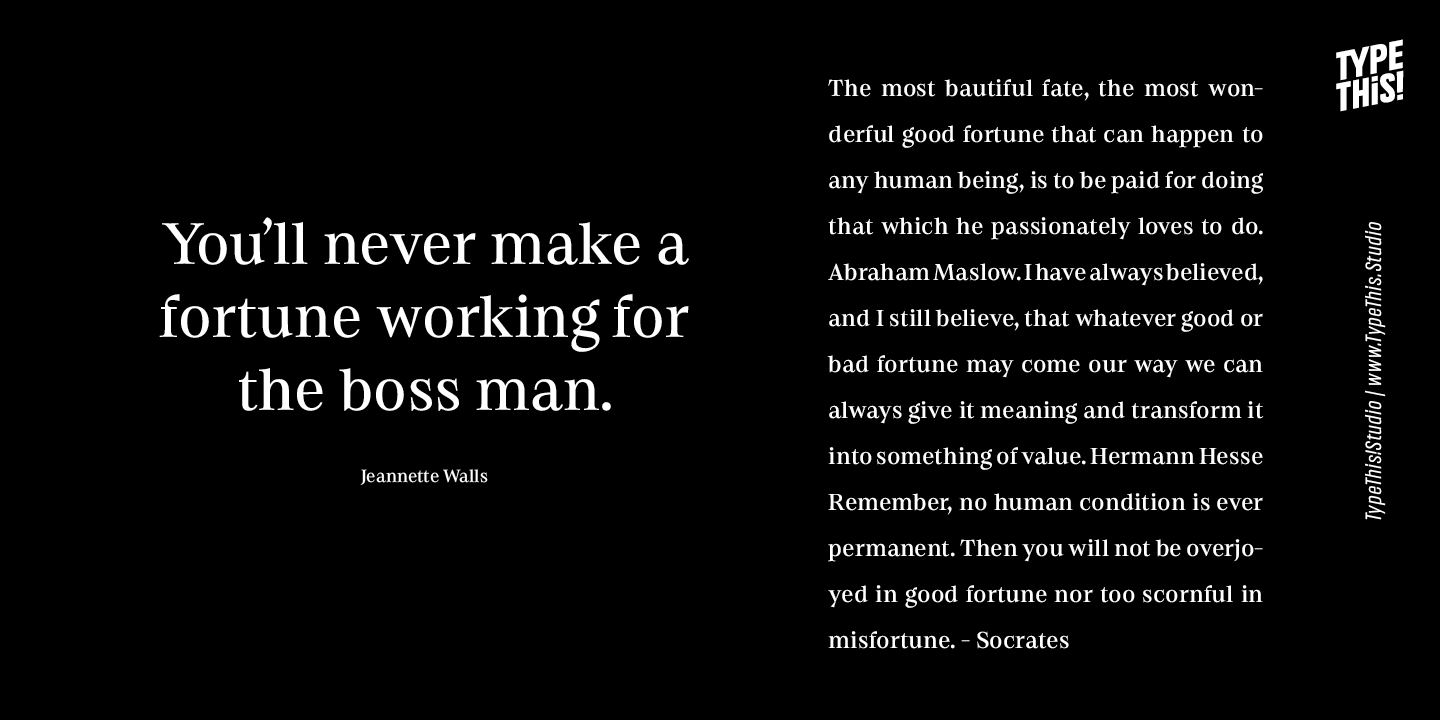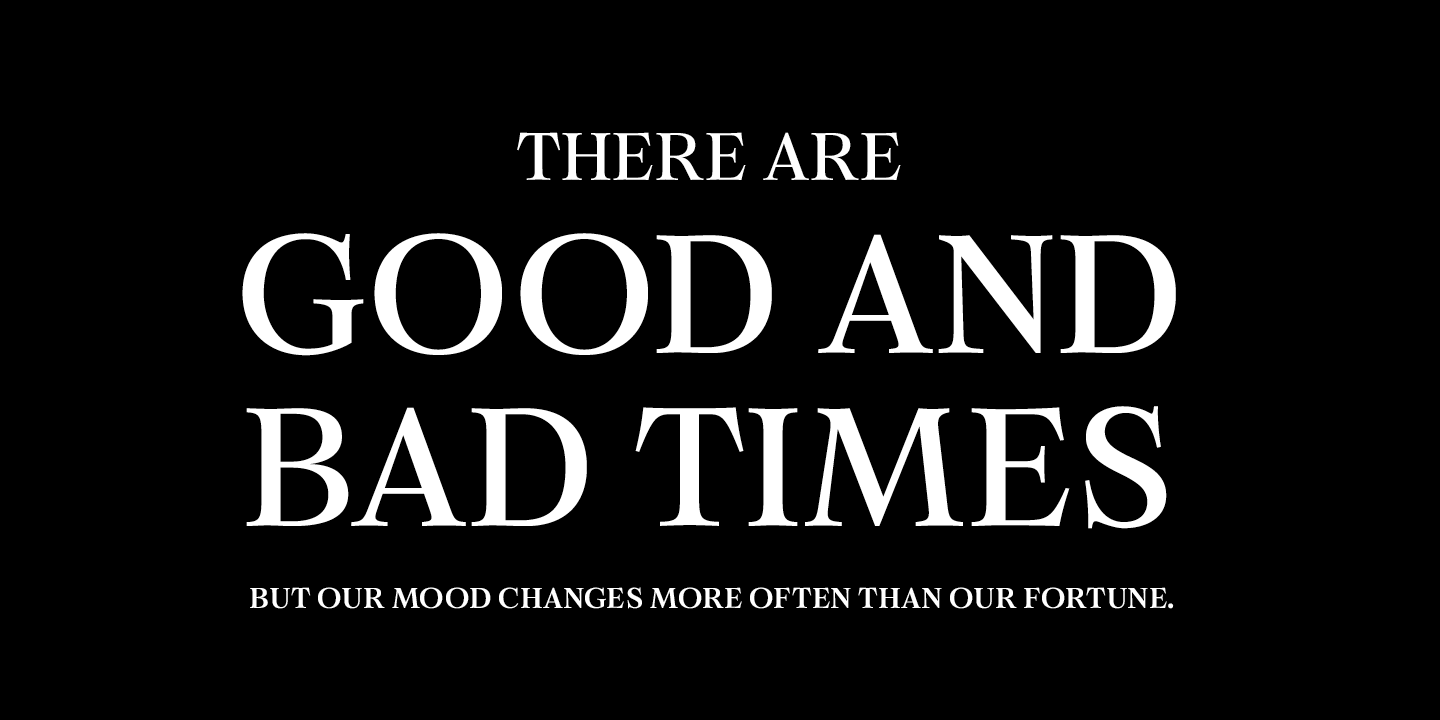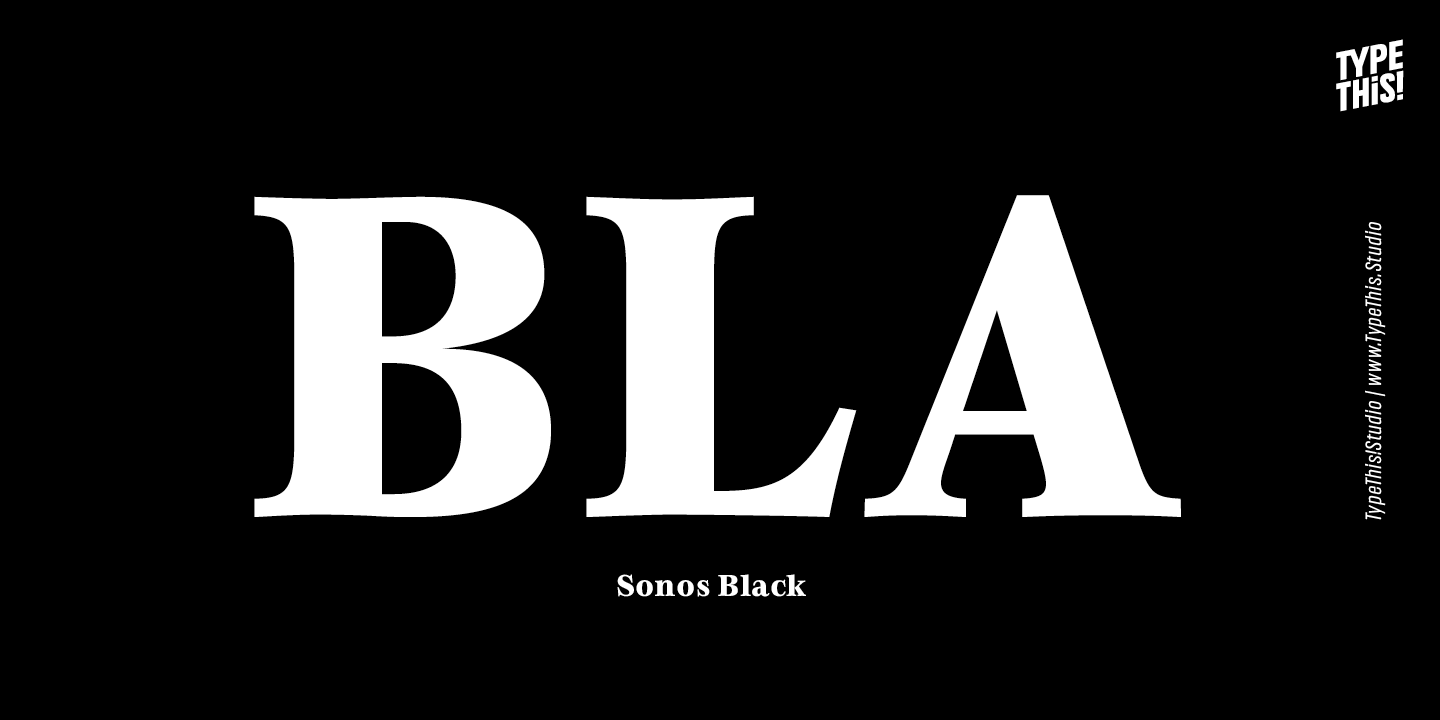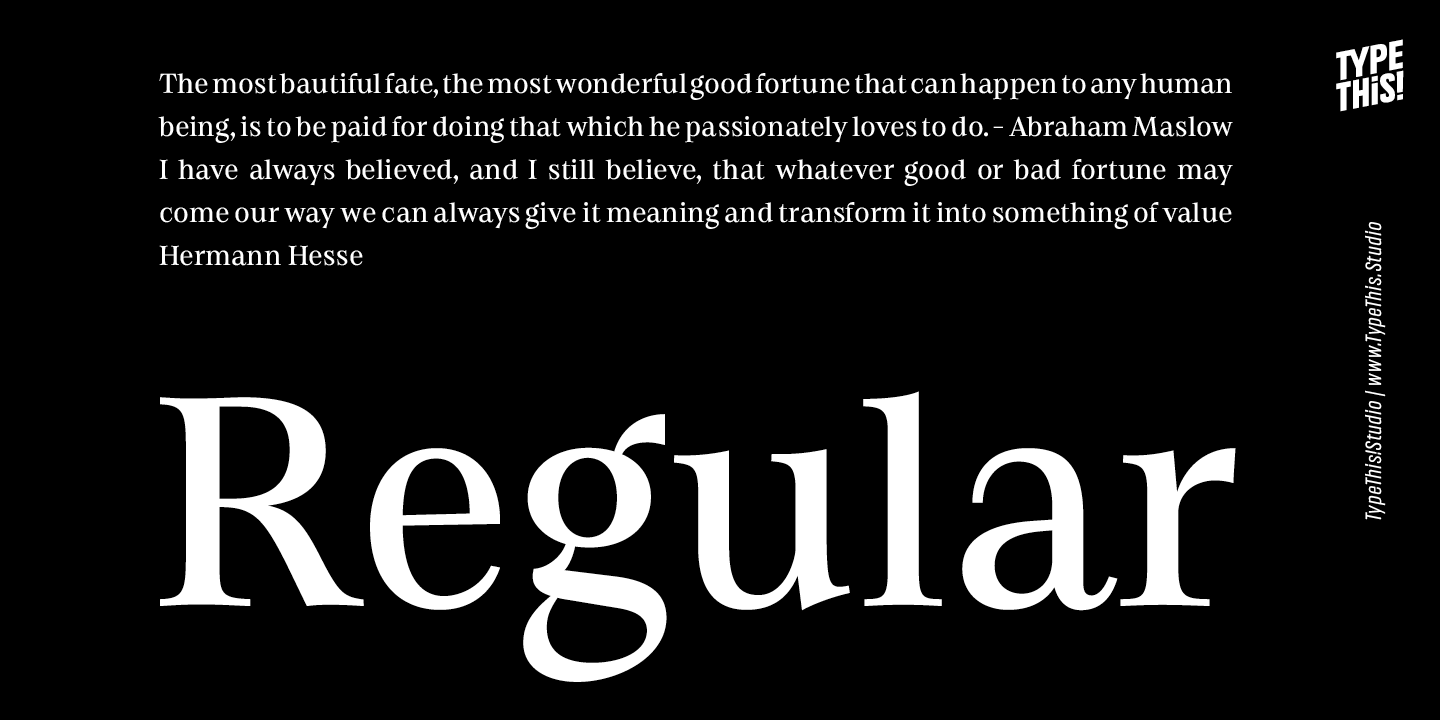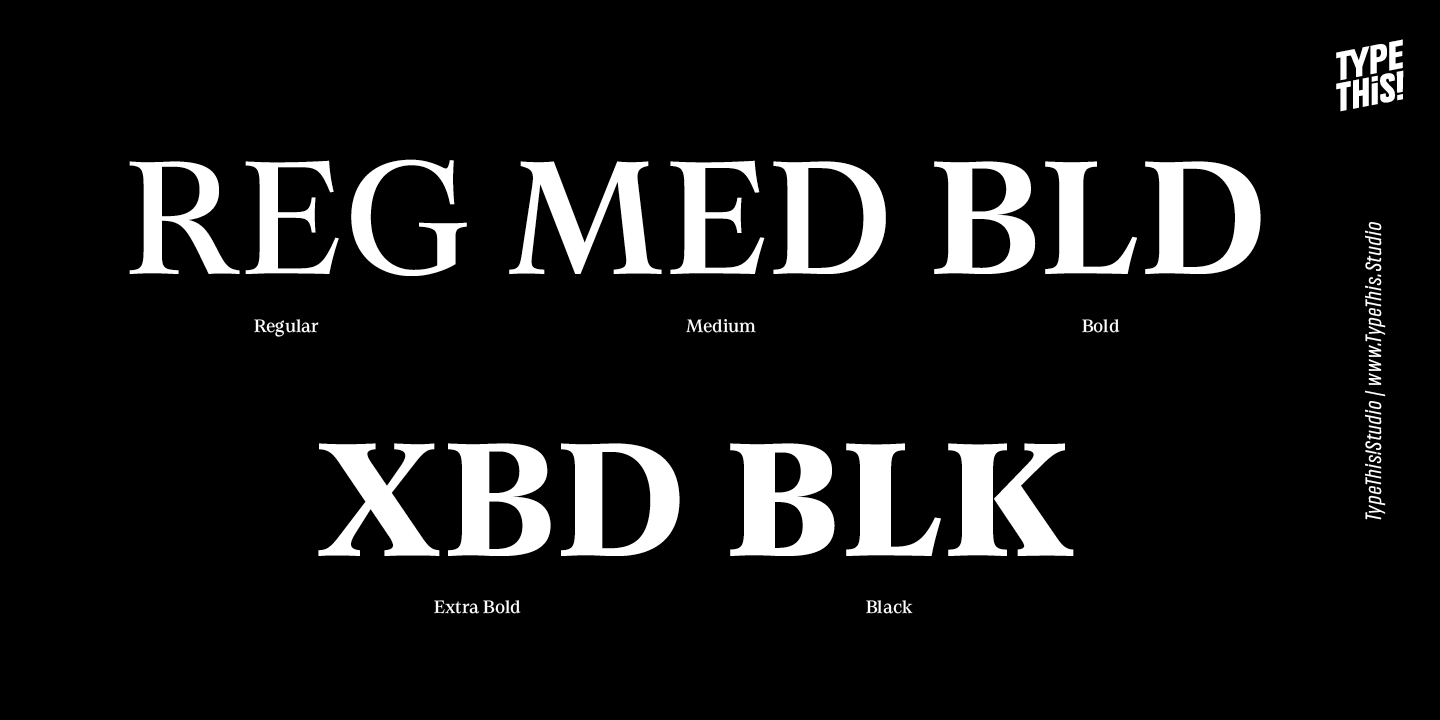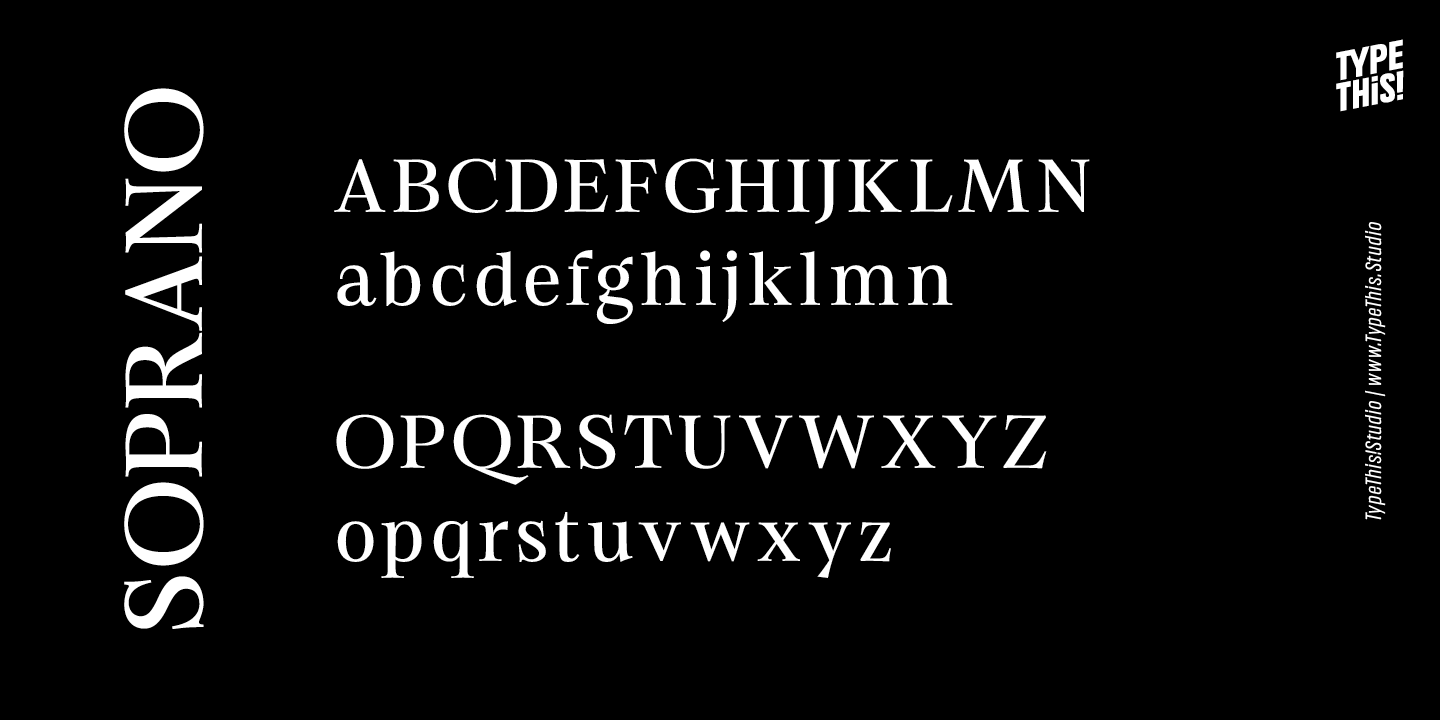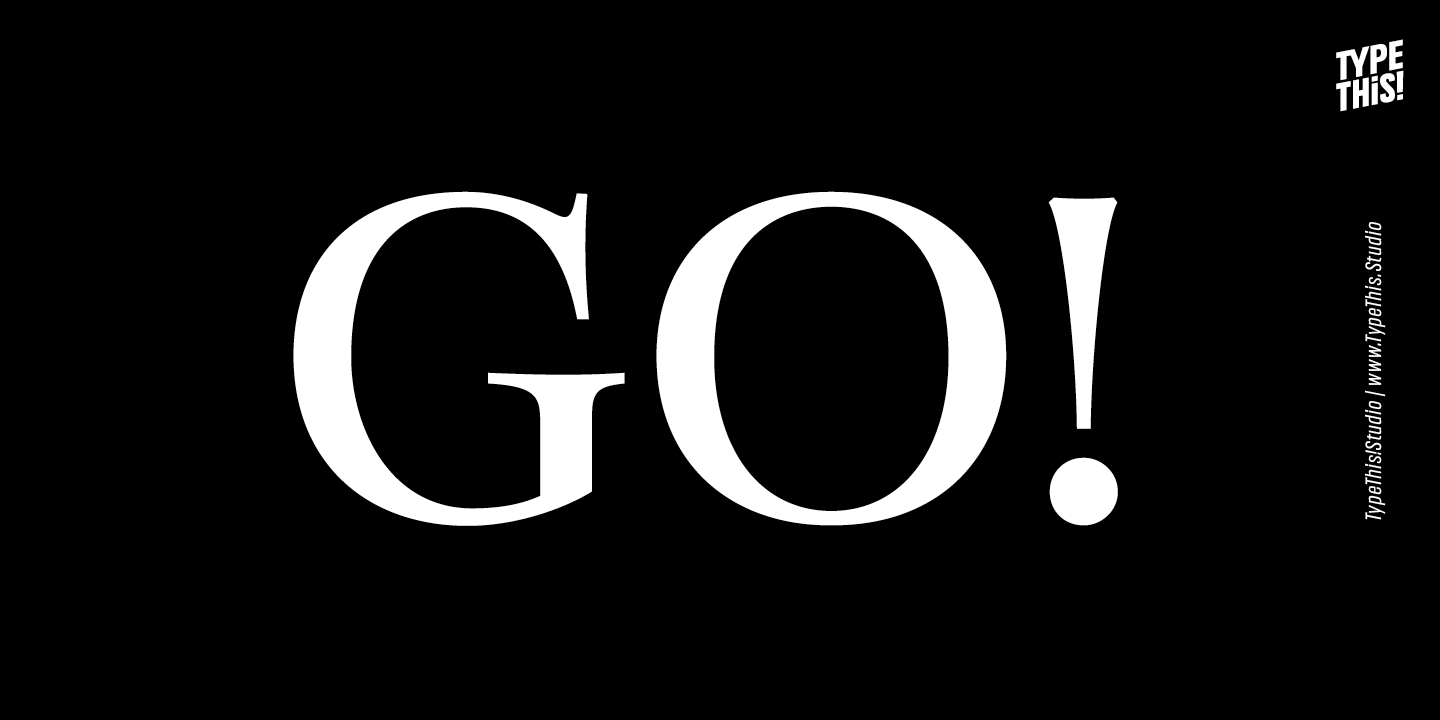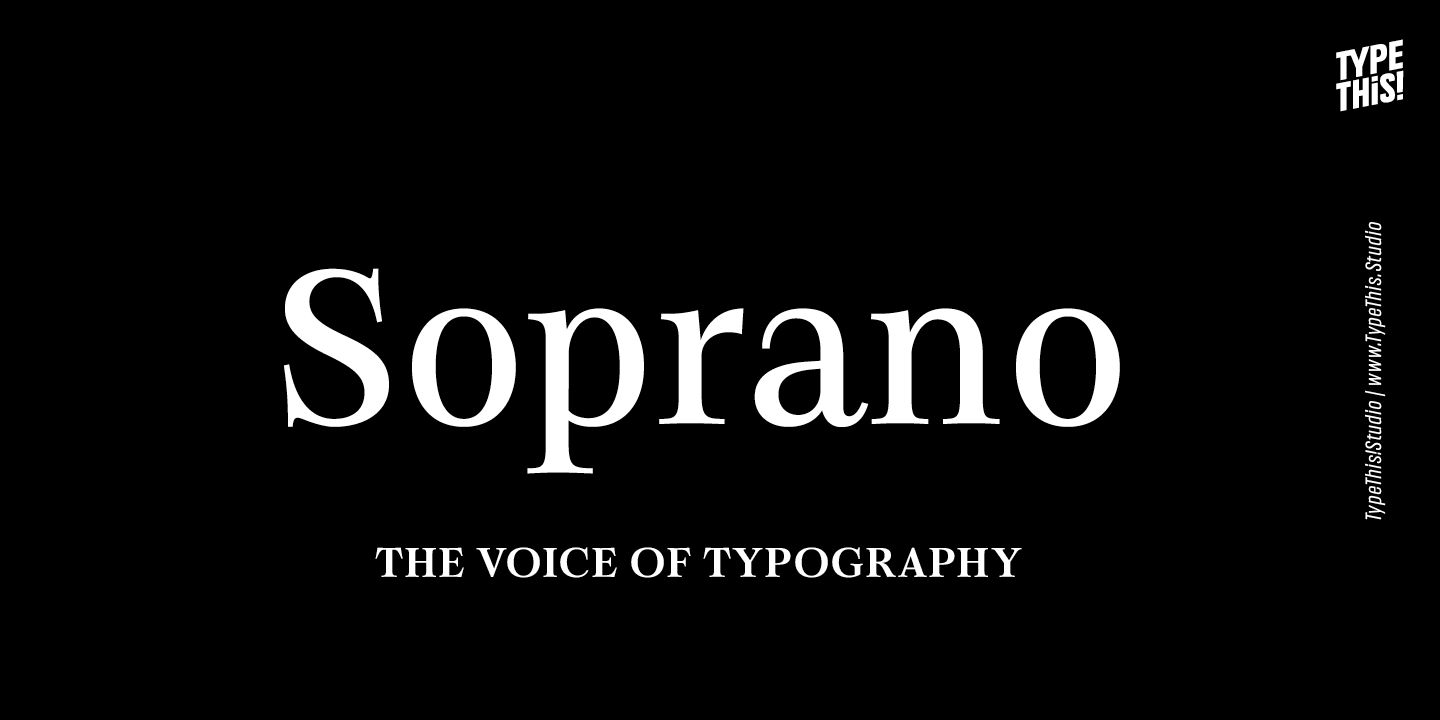
Soprano
About Soprano
A well-polished typeface is like the sweet sound of a melodious voice. Soprano is designed for elegant and luxury design elements. Whether it\’s brands for watches, jewelry, cars or fine wines, Soprano adds the undeniable and outstanding beauty of a professional…